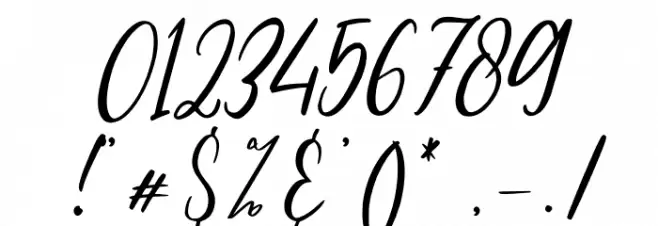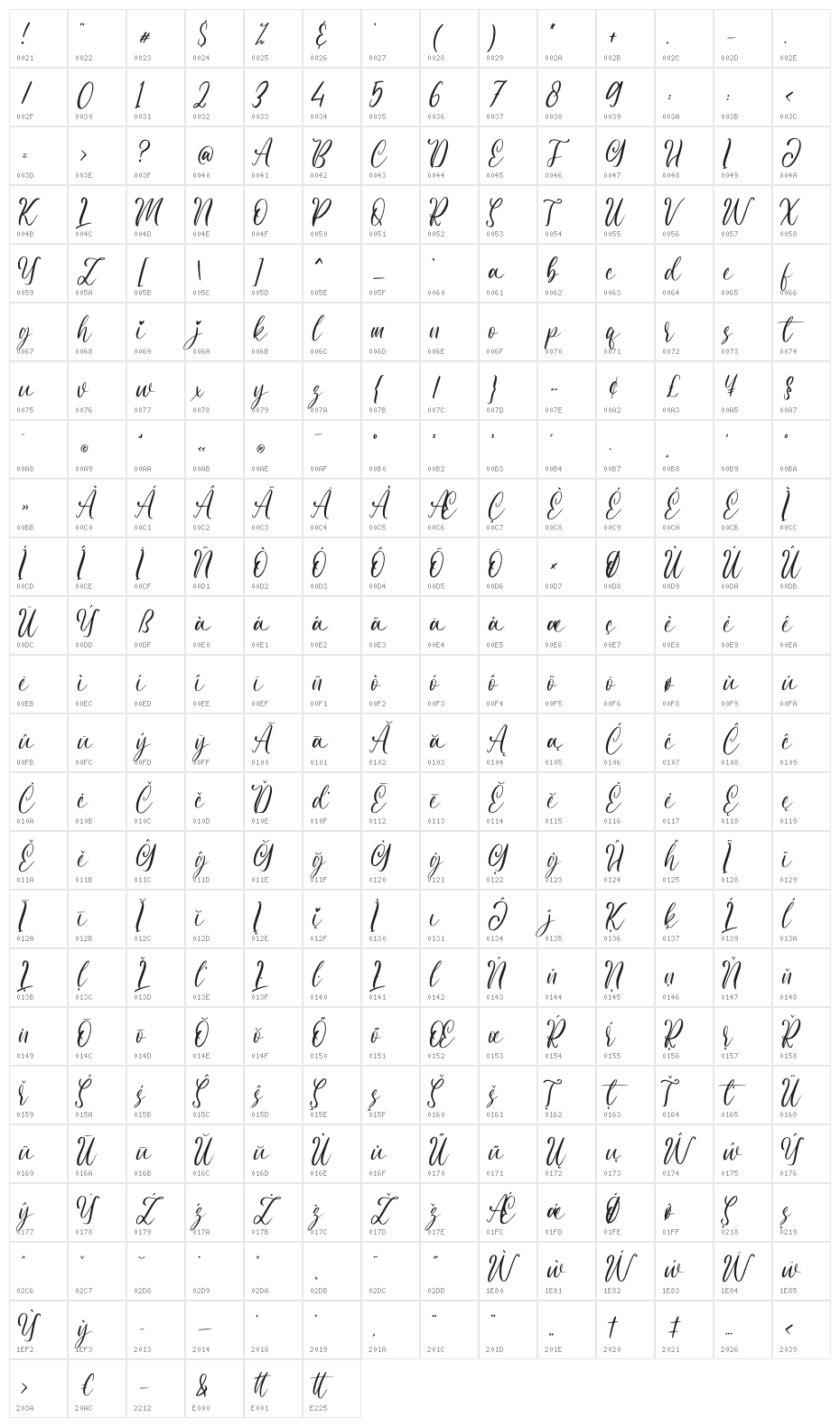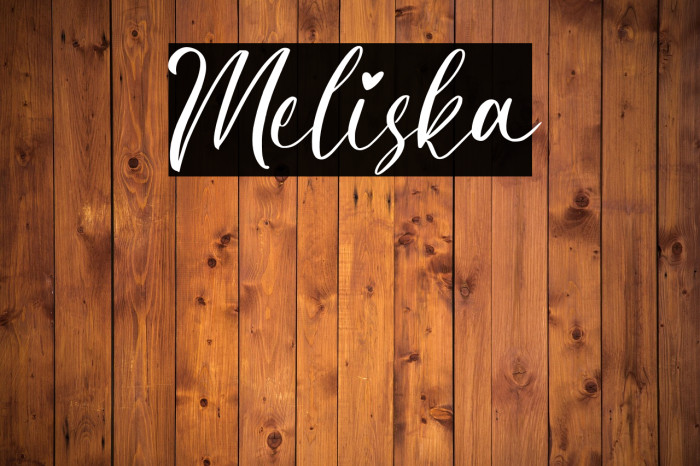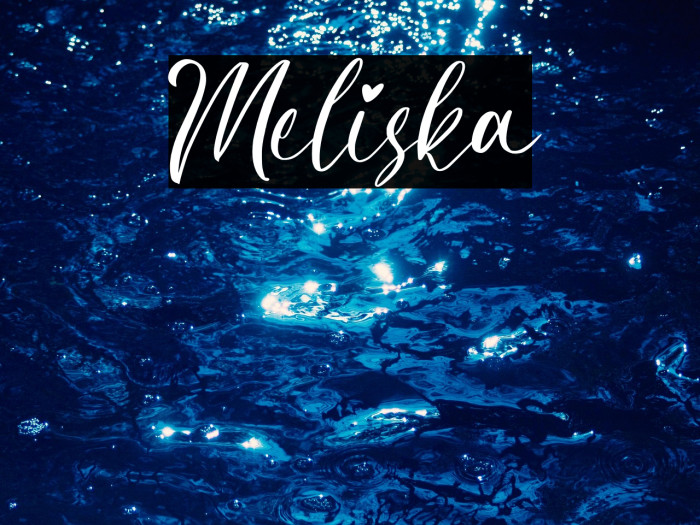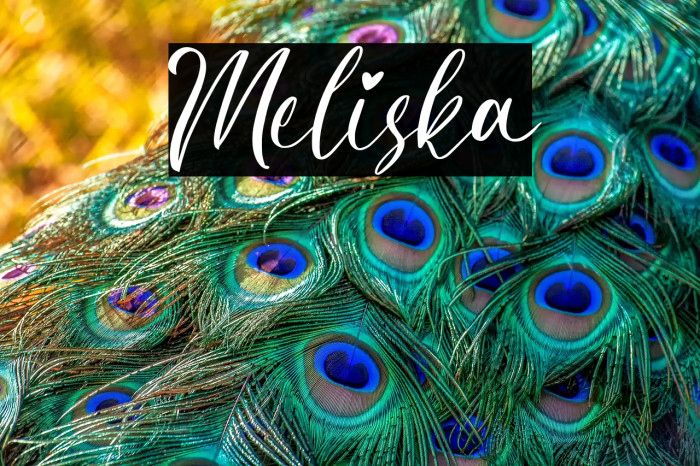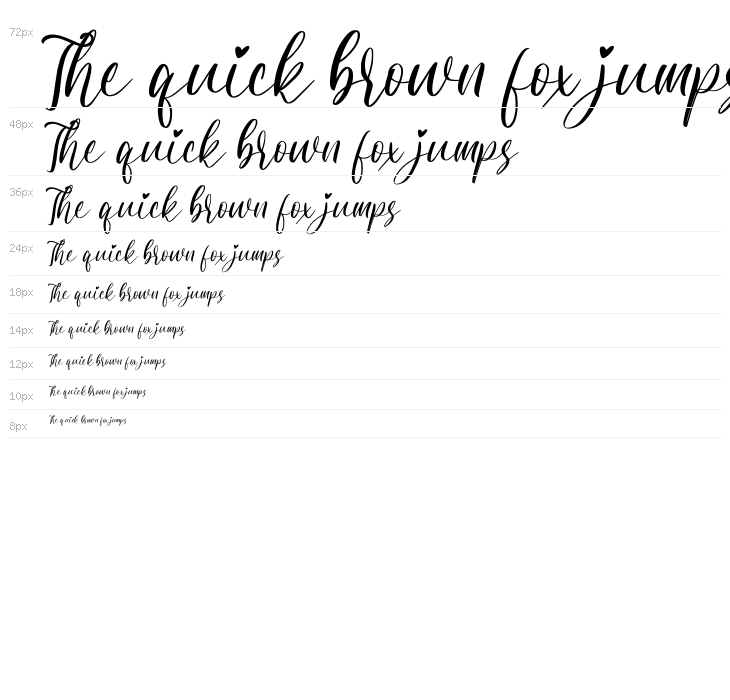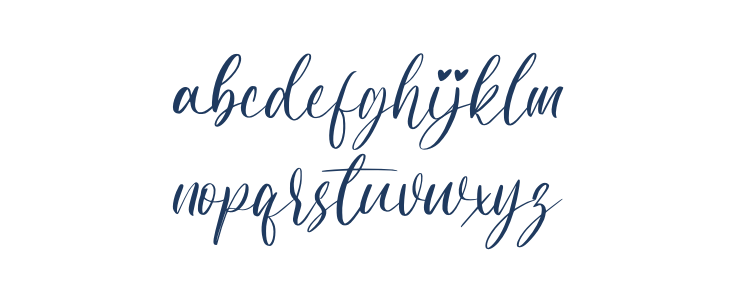
Meliska Font
Meliska Description
This font features an elegant, flowing script style that mimics the fluidity of natural handwriting. The uppercase letters are characterized by their tall, sweeping ascenders and descenders, creating a sense of movement and grace. The lowercase letters maintain a consistent rhythm, with smooth curves and loops that enhance readability. The numerals are designed with a similar flair, ensuring they complement the alphabetic characters. Special characters are thoughtfully integrated, maintaining the overall aesthetic. This font is ideal for projects that require a personal, artistic touch.